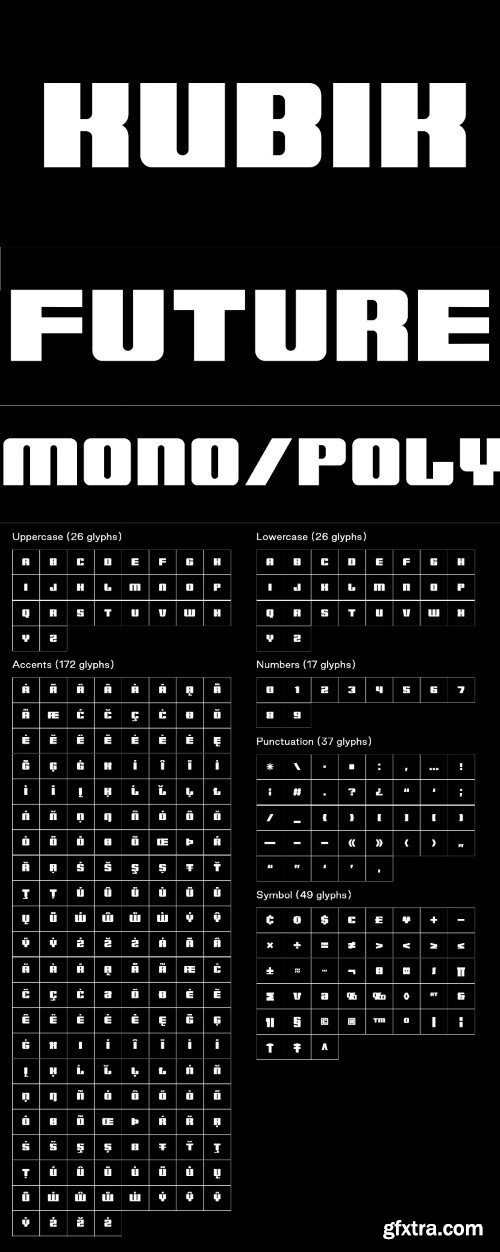
库布克字体
Kubik is a semi mono spaced modular display font inspired by the synth music and visual culture of the 1980’s. It is all uppercase, with the lower case displaying a sharper alternate version of some characters.